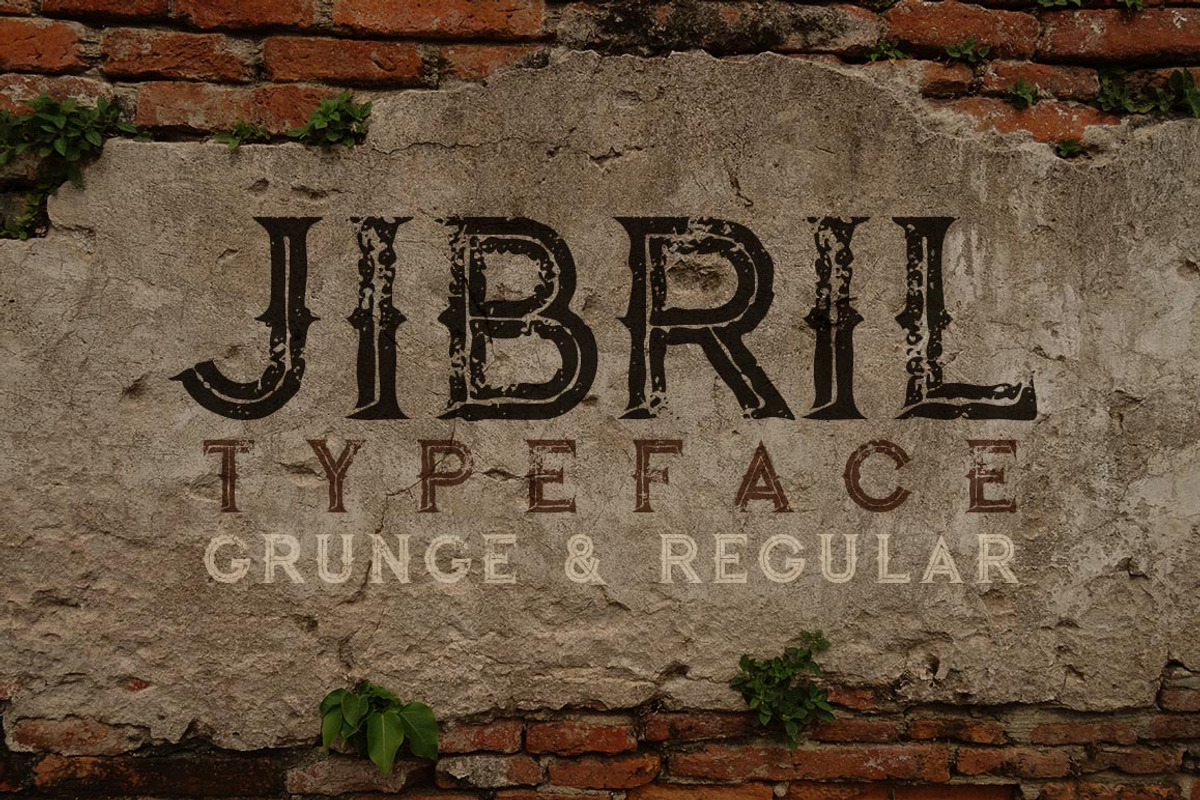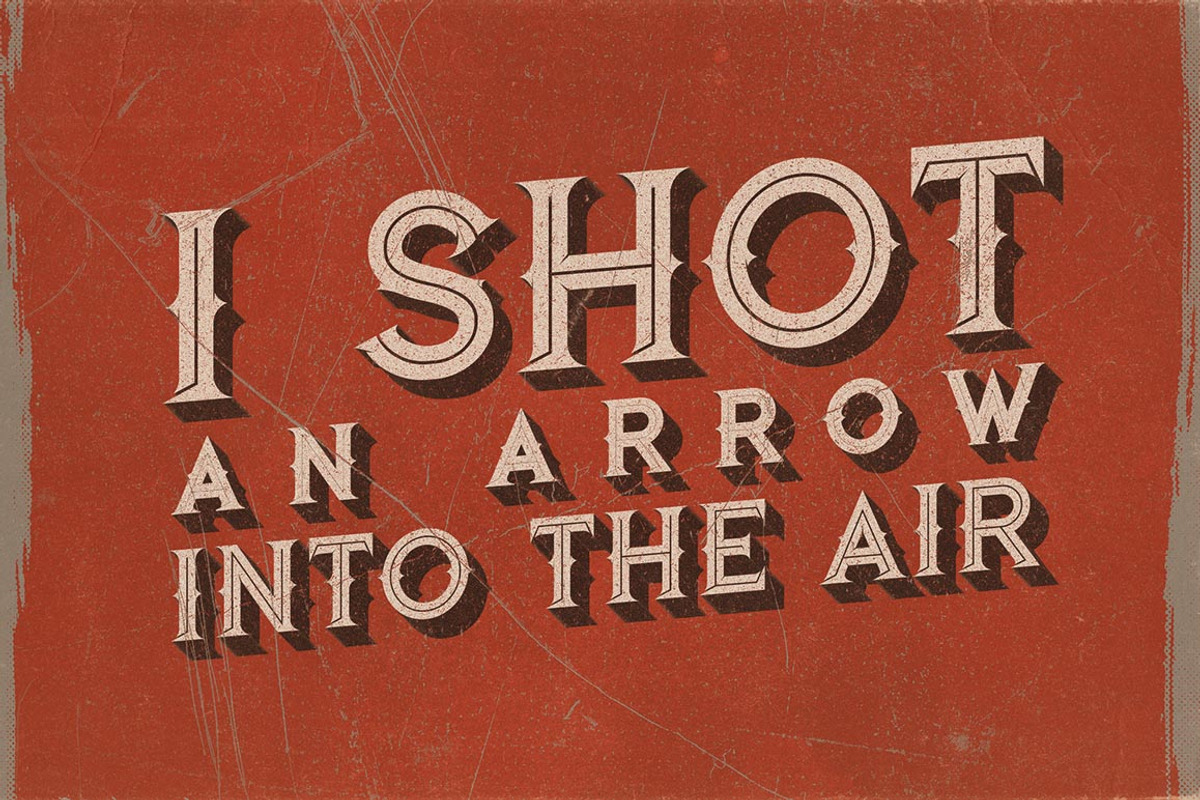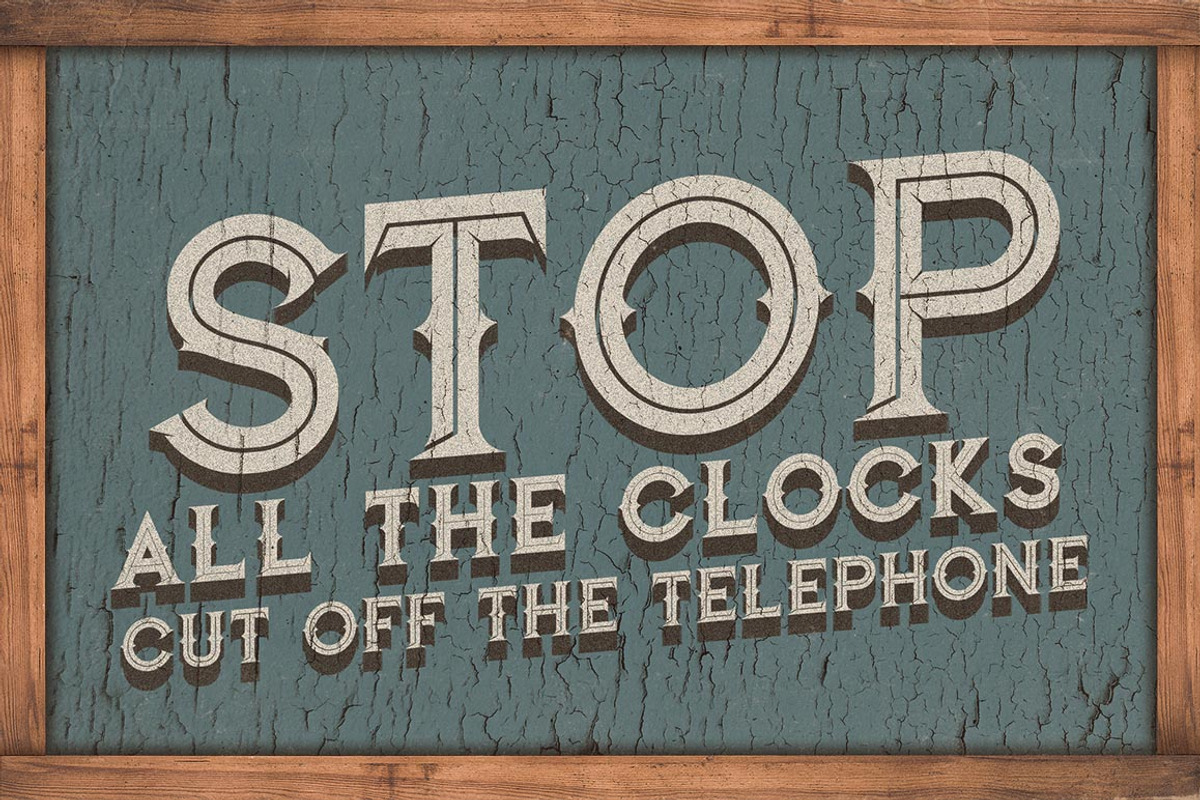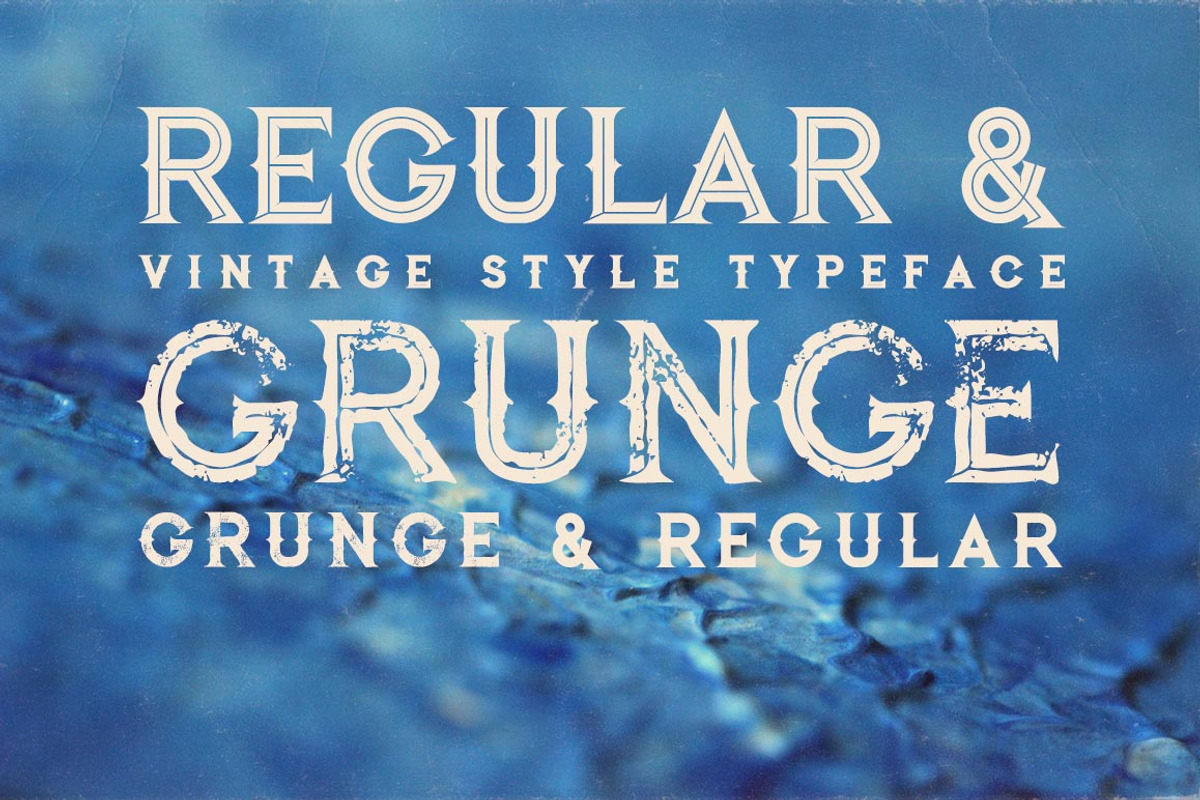
Jibril - Vintage Style Font
Jibril - Vintage Style Font by JumboDesign is a font selected for branding, posters, packaging, typography.
Why Jibril - Vintage Style Font is worth a look
Jibril - Vintage Style Font by JumboDesign fits naturally into Branding, posters, packaging, typography.